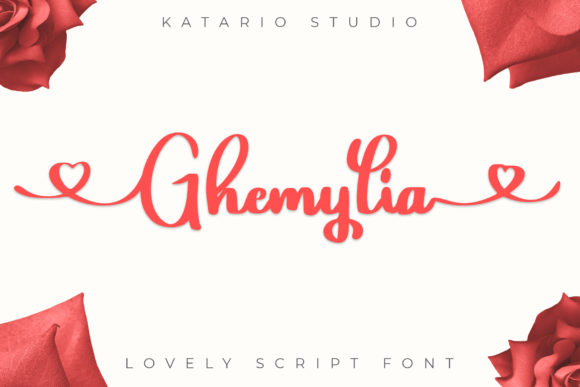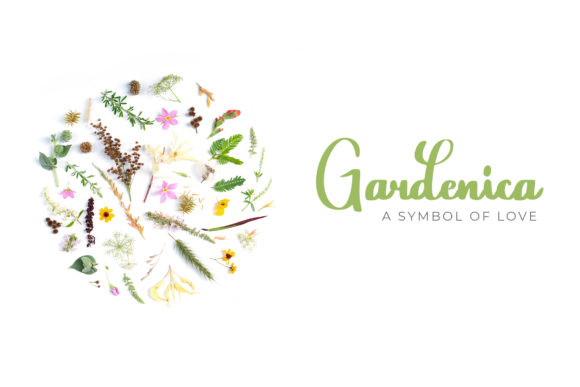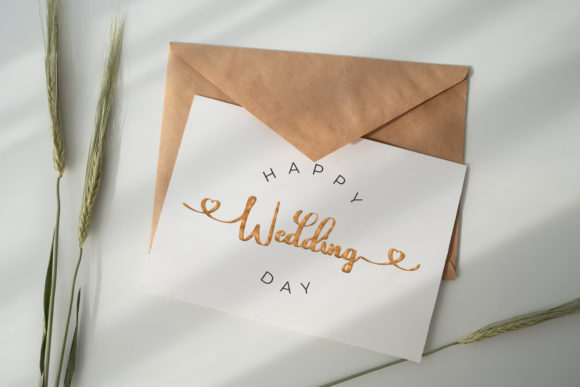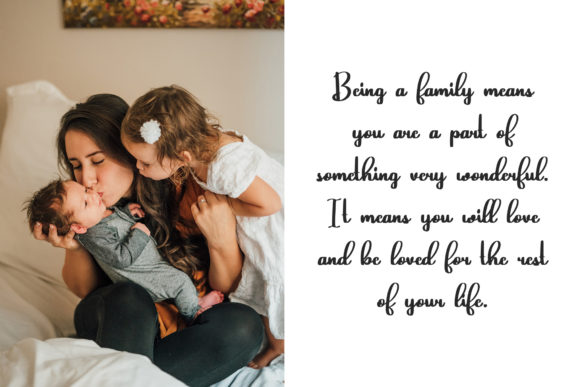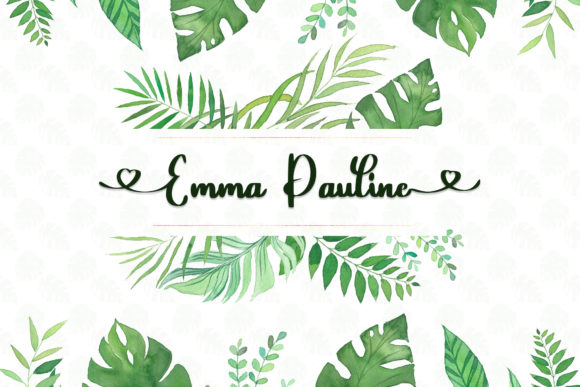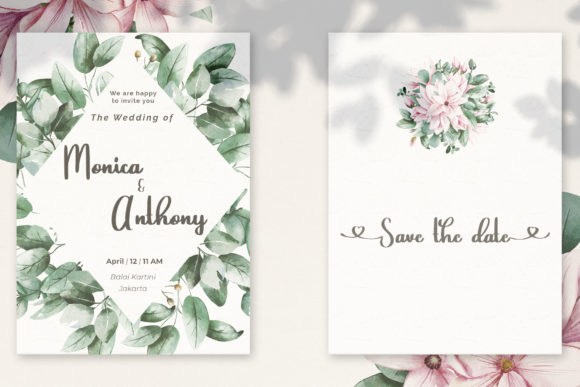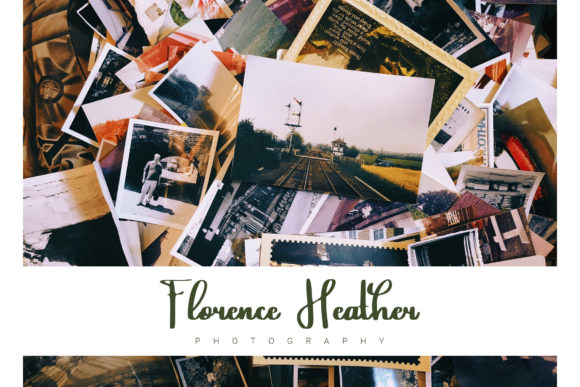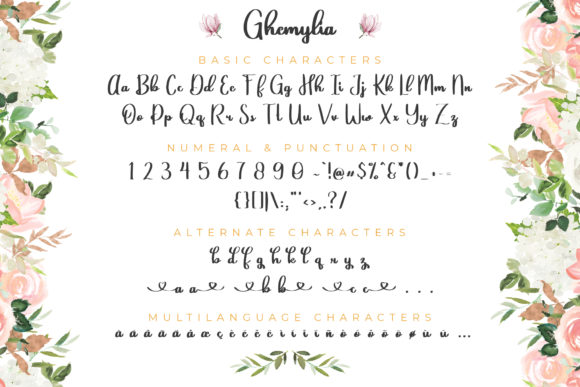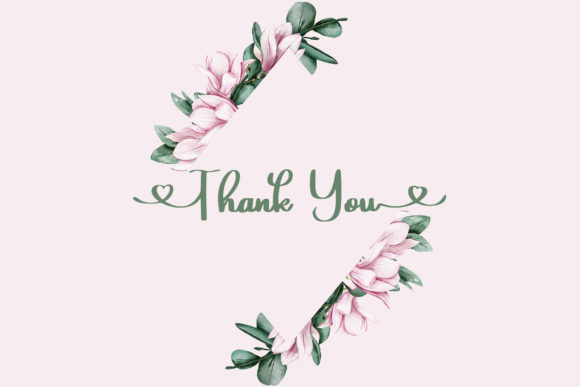
Ghemylia Font
About Ghemylia Font
Ghemylia is a lovely script font full of alternates. It’s perfect for weddings, Valentine’s day designs and any craft in need of a romantic twist!